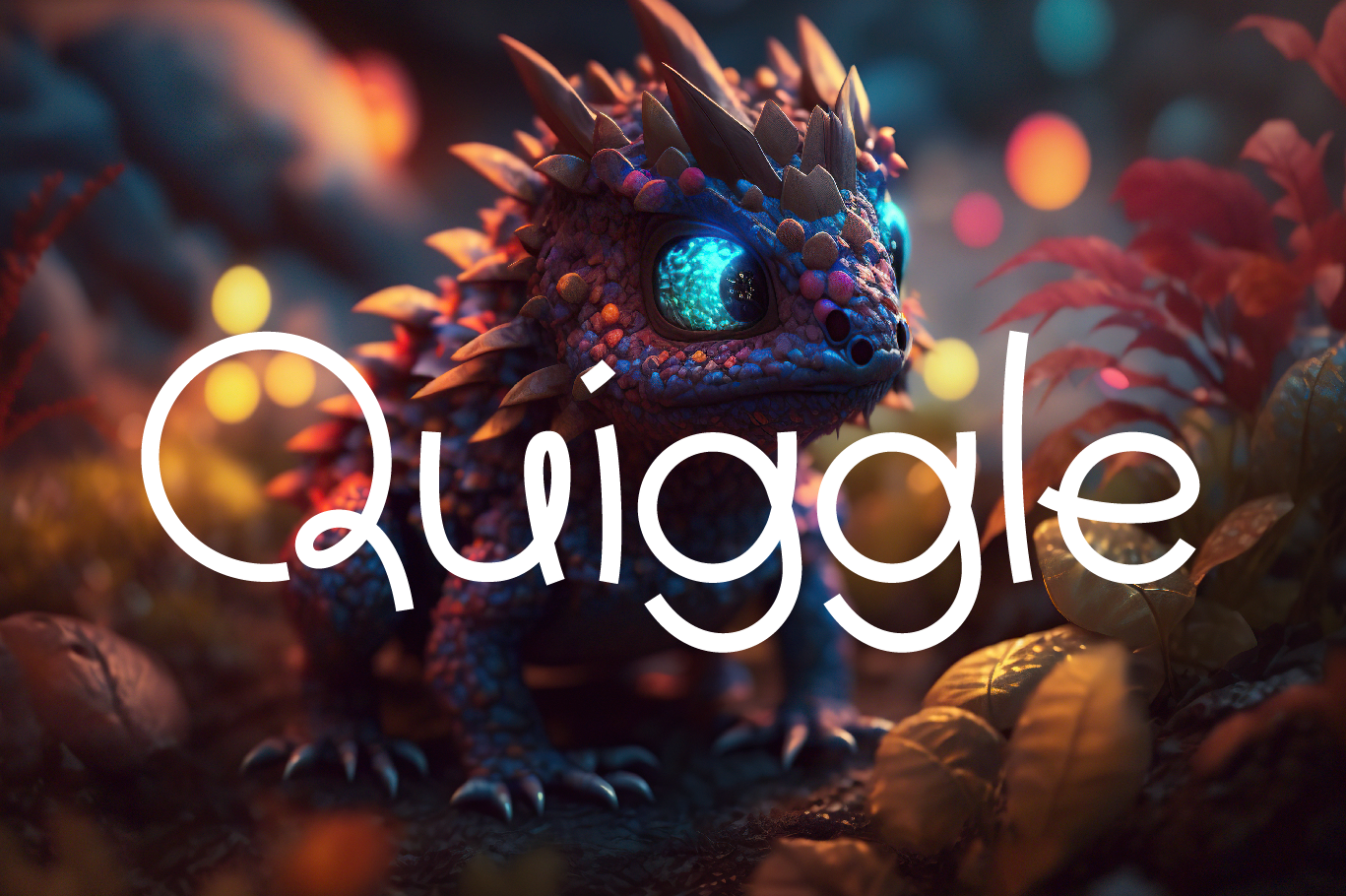
Quiggle font
A playful handscript font with clean smooth curves. Each letter flows and loops in a continuous line. A font with a childlike playfulness but a mature sense of letterform.